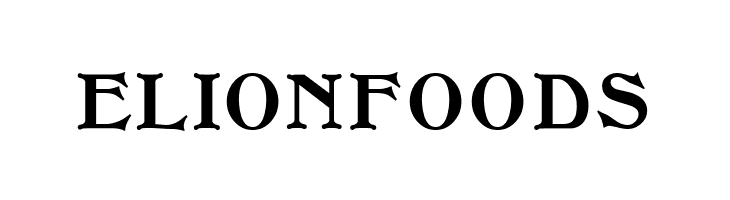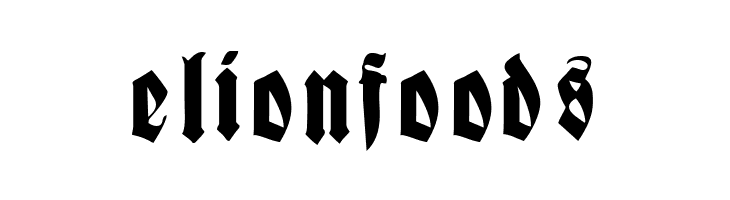
A modern, clean font with elegant curves and balanced proportions.
A bold, pixelated font with a zigzag pattern, ideal for modern and digital designs.
A bold, geometric font with zigzag patterns and a pixelated style.
An elegant script font with intricate flourishes and flowing lines.
A bold, distressed font with a vintage, hand-crafted appearance.
A rugged, distressed font with a bold, textured appearance.
A flowing, cursive font with elegant loops and a handwritten appearance.
A bold, geometric font with a modern and assertive style.
A bold, runic-style font with a textured, ancient appearance.
A geometric and ornamental font with sharp lines and intricate inner patterns.
A pixelated, retro-style font with a blocky, digital appearance.
A pixelated, blocky font with a retro digital vibe.
A bold, modern font with a stencil-like, industrial design.
A bold, angular font with a gothic-inspired, dramatic style.
An elegant script font with flowing, interconnected letters and intricate swirls.
A sleek, modern font with clean lines and a slightly condensed form.
A modern, geometric font with clean lines and a minimalist style.
A sleek, modern font with clean lines and slightly condensed letterforms.
A bold, energetic script font with a hand-painted look.
A bold, energetic script font with a hand-painted, artistic style.
A bold, dynamic brush script font with expressive strokes.
A bold, playful script font with rounded strokes and a friendly, handwritten style.
A modern, elegant script font with a handwritten feel.
A fluid, elegant handwritten font with a personal touch.
A bold, decorative font with sharp, angular elements and geometric patterns.
A fluid and elegant handwritten script font with a natural flow.
A casual, handwritten font with fluid, cursive strokes and playful elegance.